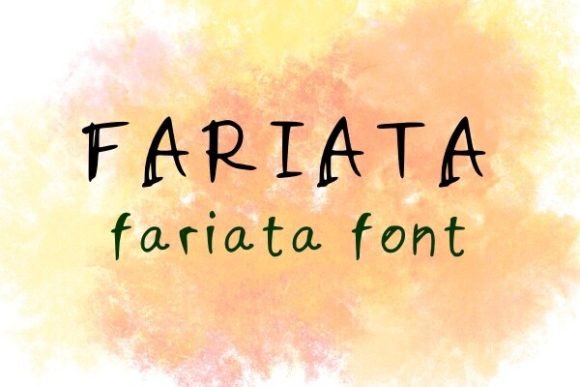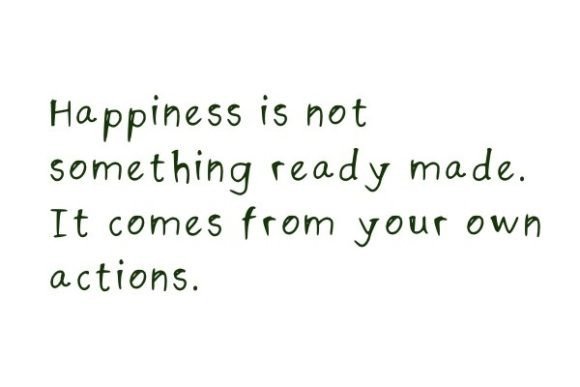
Fariata Font: Add a Personal Touch to Your Designs with this Playful Handwritten Font
Are you looking for a font that can add a touch of personality to your designs? Look no further than Fariata Font, a cute hand-drawn font that is perfect for giving your projects a fun and playful look. In this article, we’ll take a closer look at Fariata Font, its features, and how you can use it to take your designs to the next level.
What is Fariata Font?
Fariata Font is a hand-drawn font that has been carefully crafted to give your designs a personal touch. It’s a playful and fun font that is perfect for a variety of design projects, from social media graphics to blog posts, and even craft projects. The font has a unique, handwritten look that is sure to make your designs stand out from the crowd.
Key Features of Fariata Font
So, what makes Fariata Font so special? Here are some of its key features:
- Hand-drawn with love: Fariata Font is a hand-drawn font that has been carefully crafted to give it a unique and personal touch.
- Cute and playful: The font has a playful and fun look that is perfect for designs that require a trendy touch.
- Easy to read: Despite its playful look, Fariata Font is easy to read, making it perfect for use in a variety of design projects.
- Trendy and modern: The font has a modern look that is sure to make your designs look fresh and up-to-date.
How to Use Fariata Font in Your Designs
So, how can you use Fariata Font in your designs? Here are a few ideas to get you started:
- Social media graphics: Use Fariata Font to create fun and engaging social media graphics that are sure to grab the attention of your followers.
- Blog posts: Add a personal touch to your blog posts with Fariata Font, perfect for headings, titles, and even body text.
- Craft projects: Fariata Font is perfect for craft projects, such as making cards, gift tags, and other DIY projects.
- Branding and packaging: Use Fariata Font to create a unique and memorable brand identity that will set you apart from the competition.
Why You Need Fariata Font in Your Font Library
If you’re a designer or crafter, you know how important it is to have a good font library at your disposal. Fariata Font is a wonderful asset to your font library, and here’s why:
- Unique and versatile: Fariata Font is a unique and versatile font that can be used in a variety of design projects.
- Time-saving: Having Fariata Font in your font library can save you time and effort, as you won’t have to spend hours searching for the perfect font.
- Consistency: Using Fariata Font in your designs can help to create a consistent look and feel across all of your projects.
In conclusion, Fariata Font is a wonderful font that can add a personal touch to your designs. Its playful and fun look makes it perfect for a variety of design projects, from social media graphics to craft projects. With its unique and versatile features, Fariata Font is a great asset to have in your font library. So why not give it a try and see how it can take your designs to the next level?